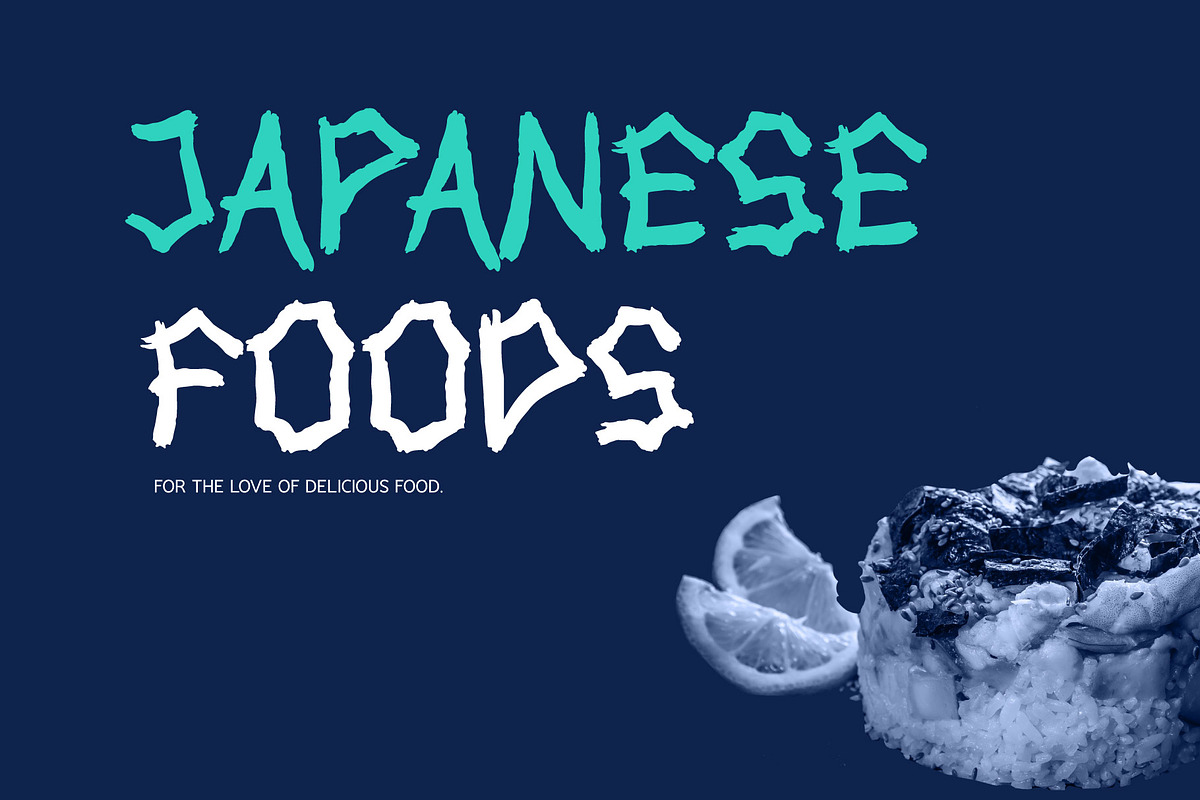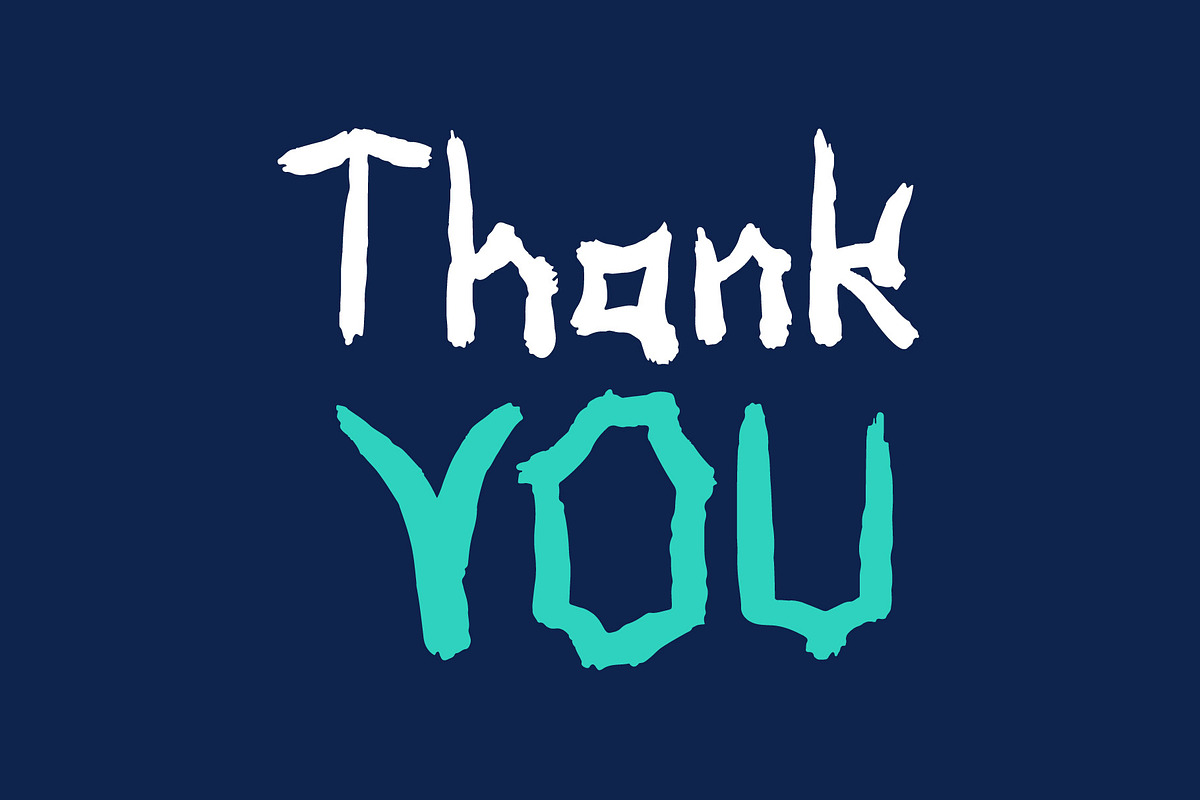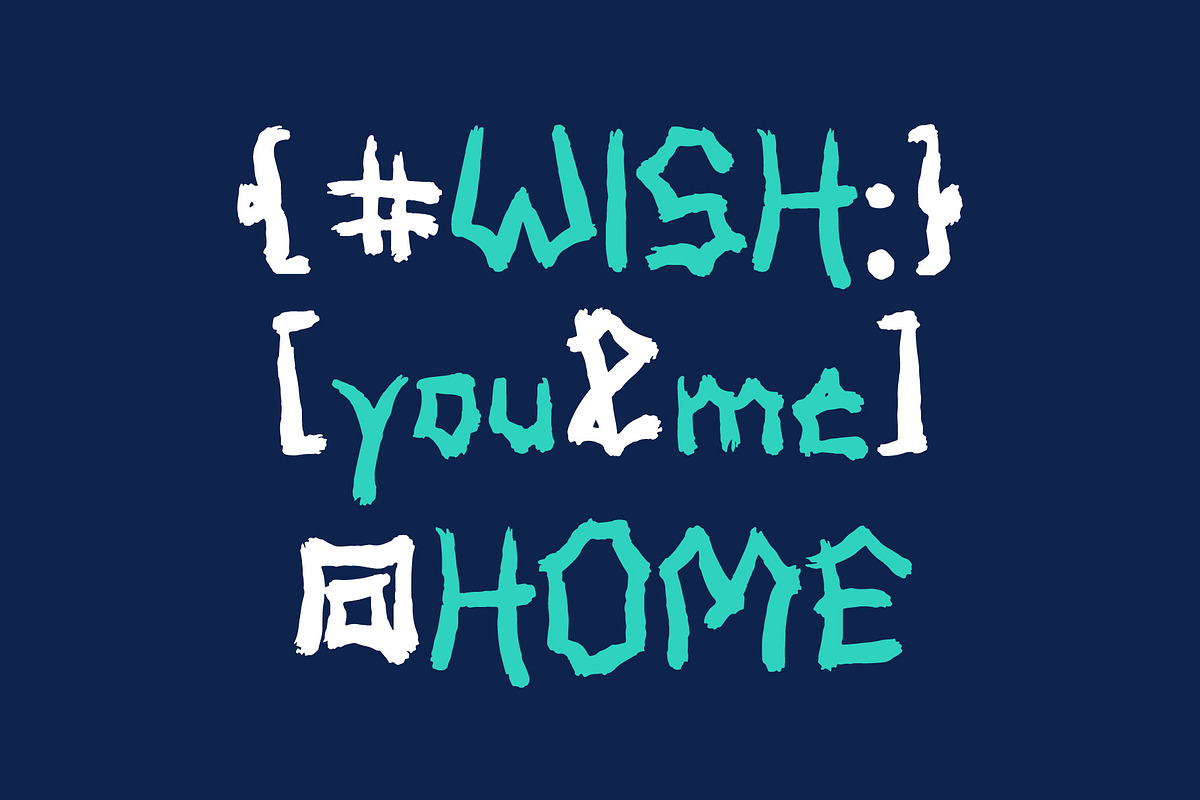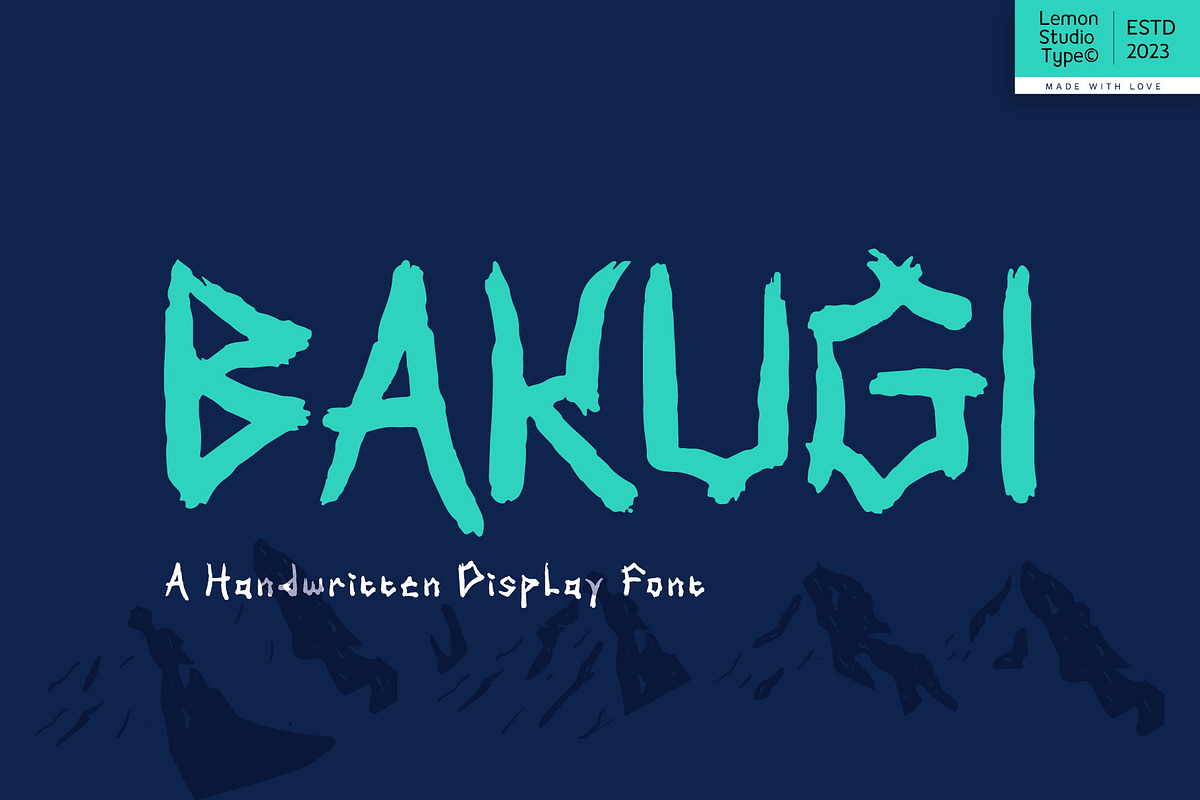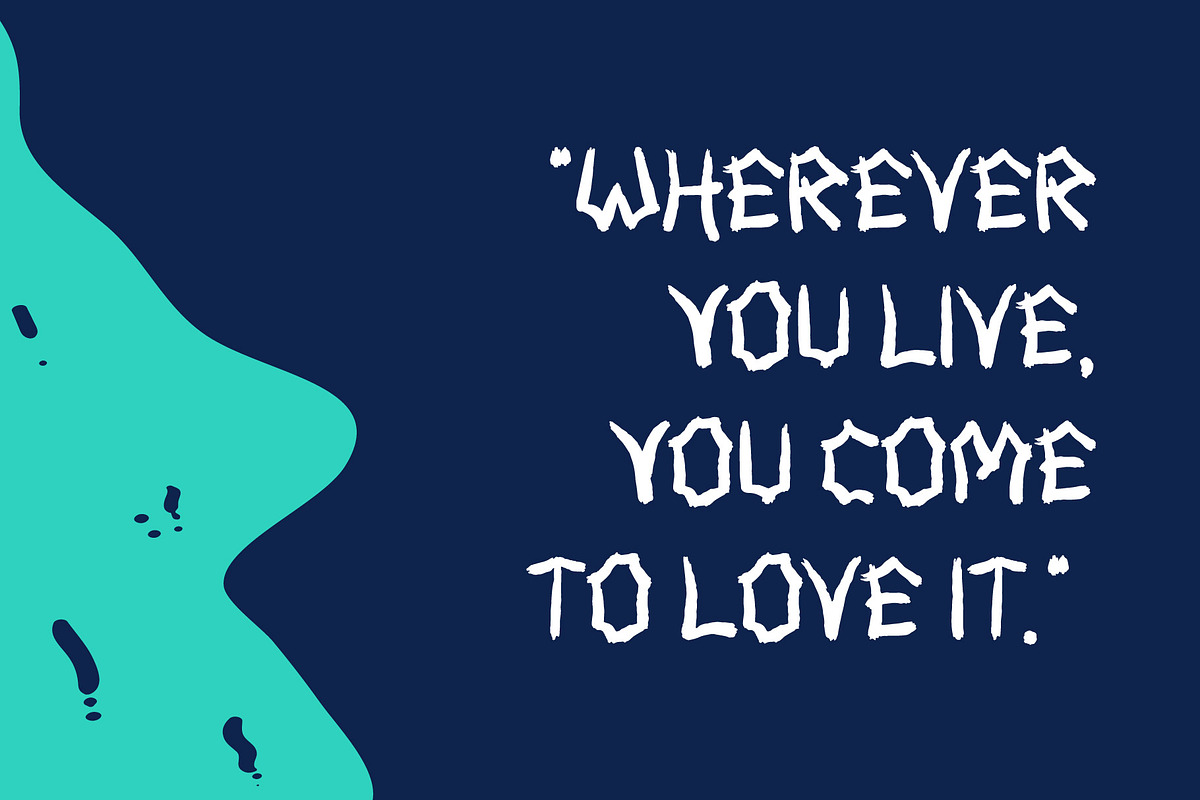
Bakugi - Handwritten Display
Bakugi is handwritten font inspired by Japanese style as a theme for it as well. The brush is very thick with a Japanese feel. So perfect for your various unique design needs. Like headings, titles, logotypes, mockups, and more.